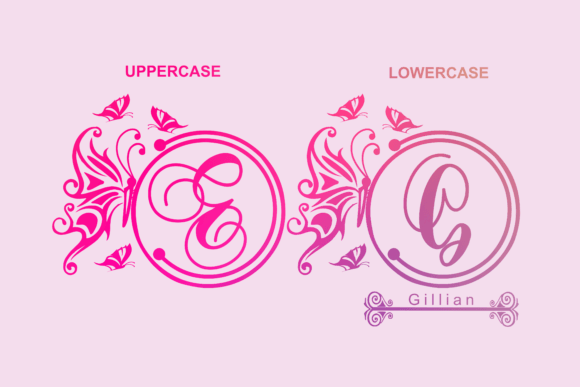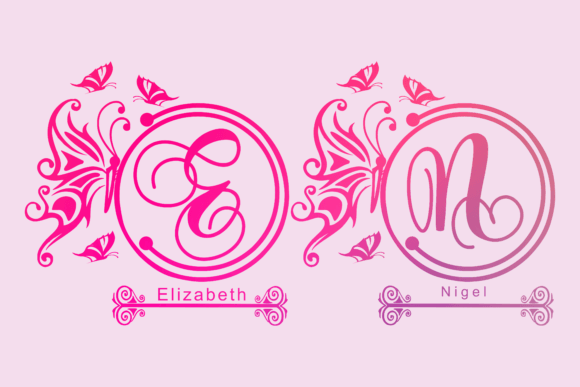
Spread Your Wings with the Butterfly Monogram Font
Have you ever been stuck in front of your computer, staring at a blank design canvas, waiting for inspiration to strike? It happens to the best of us. But what if you had the perfect tool to unlock your creativity and bring your ideas to life? For designers and crafty individuals, the Butterfly Monogram Font is a game-changer. This elegant decorative font features lovely ornaments that will transport you to a whimsical world of beauty and wonder.
With the Butterfly Monogram Font, you can create stunning wedding invitations, beautiful stationery art, eye-catching social media posts, and cute greeting cards that will leave a lasting impression on your audience. Its authentic feel and delicate charm make it a valuable asset for designers who want to add a touch of magic to their designs. Whether you’re a seasoned pro or a beginner, this font is sure to inspire you to new heights.
- Font Type: Monogram font with a whimsical, hand-drawn feel.
- Unique Characteristics: Features intricate, hand-drawn details and a delicate, lacy feel, making it perfect for adding a touch of elegance to designs.
Butterfly Monogram Font Review
I recently had the chance to work with the Butterfly Monogram Font, and I must say it’s a unique and eye-catching addition to any design project. Here’s my honest review.
- The font’s whimsical and delicate design makes it perfect for wedding invitations, baby announcements, or any other project that requires a touch of elegance.
- The various monogram styles and customization options make it easy to create a one-of-a-kind design that suits your client’s or personal style.
- The font is highly legible, even at small sizes, making it a great choice for smaller projects like business cards or labels.
- The font may be too ornate for some projects, such as news headlines or bold statements, where simplicity is key.
- The customization options can be overwhelming for beginners, and may require some trial and error to get the desired result.
- The font may not be compatible with all operating systems or devices, which could lead to inconsistencies in the final design.
The Butterfly Monogram Font is a beautiful and versatile addition to any designer’s toolkit. While it may have some limitations, its unique design and customization options make it a great choice for the right project. With some practice and patience, you can create stunning designs that will impress your clients and leave a lasting impression.
Use the Butterfly Monogram Font to create elegant and whimsical designs. Pair it with other decorative fonts to add visual interest. Experiment with different font sizes and colors to create a unique look.
The Butterfly Monogram Font is perfect for:
- Party decorations and signage.
- Personalized gifts and merchandise.